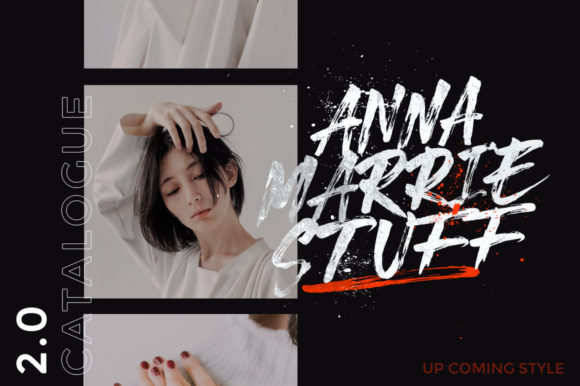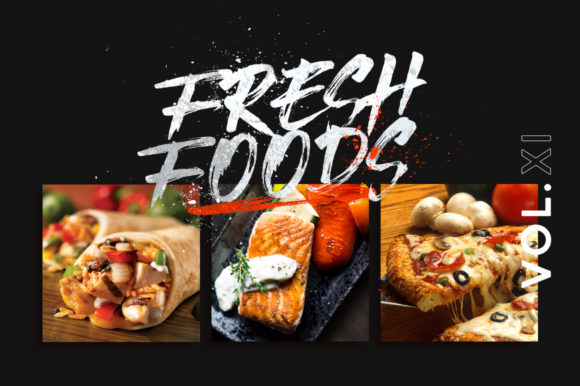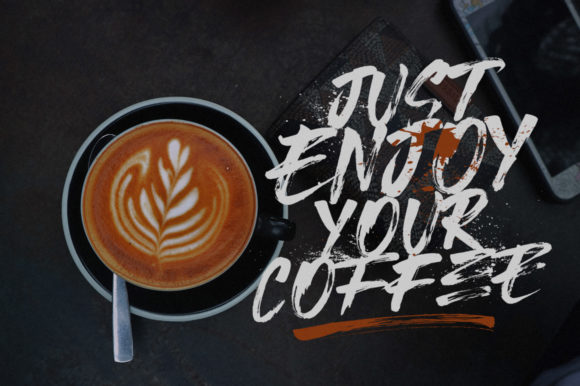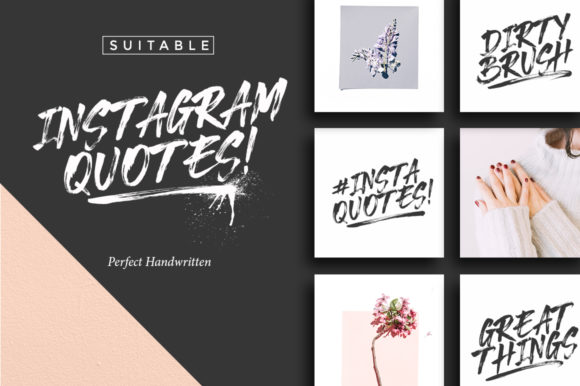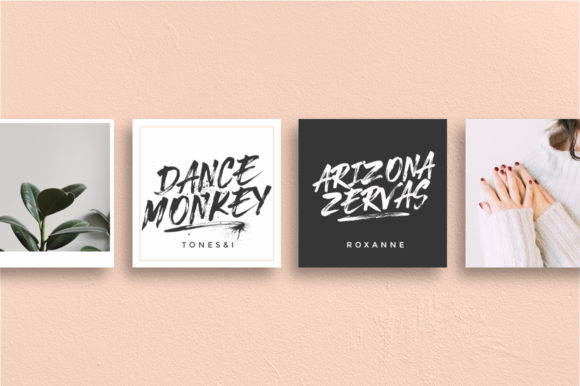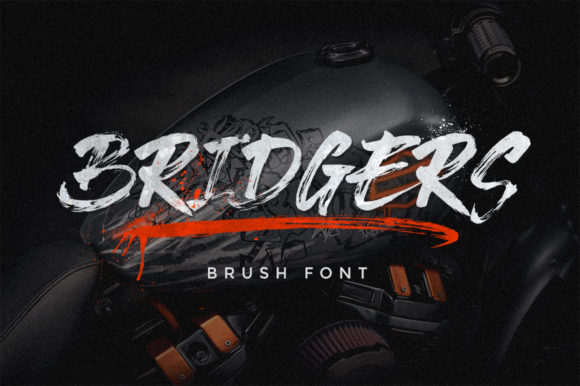
Bridgers Brush Font: A Powerful and Fun Handbrushed Script
Bridgers Brush is a stunning handbrushed script font that exudes confidence and style. With its unique feel and versatile design, this font is perfect for designers and crafters looking to add a personal touch to their projects. In this article, we’ll dive into the world of Bridgers Brush and explore its features, uses, and benefits.
The Unique Features of Bridgers Brush Font
Bridgers Brush is a powerful and fun handbrushed script with a distinct character. Its unique features include:
• Handbrushed texture: The font boasts a beautiful, handbrushed texture that gives it a personal and organic feel.
• Confident and stylish: Bridgers Brush is designed to deliver any message with confidence and style, making it perfect for a wide range of projects.
• Versatile design: The font is suitable for various design applications, from digital projects to print materials.
Uses of Bridgers Brush Font
Bridgers Brush is an incredibly versatile font that can be used in a variety of design projects, including:
• Branding and logos: The font’s unique texture and style make it perfect for creating memorable logos and brand identities.
• Digital marketing materials: Use Bridgers Brush to create eye-catching social media graphics, email headers, and website titles.
• Print materials: The font is suitable for print projects, such as business cards, brochures, and posters.
• Crafting and DIY projects: Bridgers Brush is a great choice for crafters and DIY enthusiasts looking to add a personal touch to their projects, such as handmade cards, gift tags, and scrapbooking.
Benefits of Using Bridgers Brush Font
By using Bridgers Brush, designers and crafters can enjoy several benefits, including:
• Unique and personalized designs: The font’s handbrushed texture and unique feel help create one-of-a-kind designs that stand out from the crowd.
• Time-saving: Bridgers Brush is a high-quality font that saves designers and crafters time and effort in creating custom lettering and typography.
Tips for Using Bridgers Brush Font
To get the most out of Bridgers Brush, here are some tips to keep in mind:
• Experiment with different colors: The font’s handbrushed texture looks great in a variety of colors, so don’t be afraid to experiment and find the perfect hue for your project.
• Mix and match with other fonts: Bridgers Brush pairs well with other fonts, so try combining it with different typography to create a unique look.
• Pay attention to spacing and kerning: To ensure your text looks professional and polished, pay attention to spacing and kerning when using Bridgers Brush.
Bridgers Brush Font is a powerful and fun handbrushed script that offers a unique feel and versatile design. With its handbrushed texture, confident and stylish appearance, and ease of use, this font is perfect for designers and crafters looking to add a personal touch to their projects. Whether you’re working on branding and logos, digital marketing materials, print materials, or crafting and DIY projects, Bridgers Brush is a great choice. So why not give it a try and see the difference it can make in your designs?